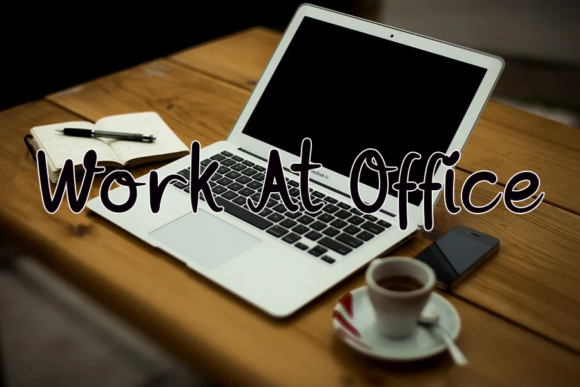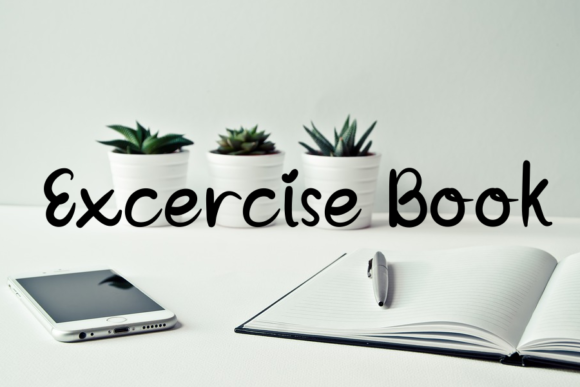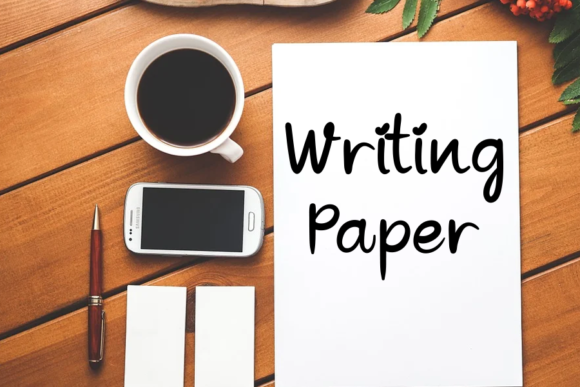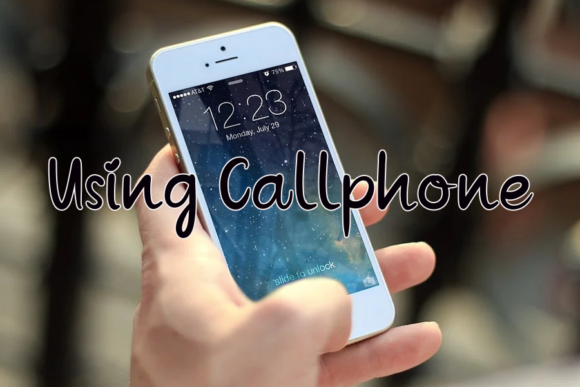
Lean to Write Font
About Lean to Write Font
Lean to Write is an simple script font with a contemporary atmosphere and impeccable form, inspired by timeless classic calligraphy. Not too thin and not too thick, balanced and varied, this font was designed to enhance the beauty of your projects.